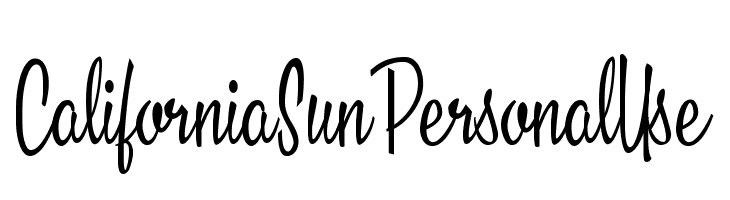
A playful, casual handwritten font with uneven strokes and a friendly appearance.
An elegant script font with flowing, interconnected characters and ornate flourishes.
A lively handwritten font with dynamic strokes and artistic flair.
A dynamic and elegant font with bold, slender strokes and cursive-like lowercase letters.
A bold, playful script font with a handwritten style.